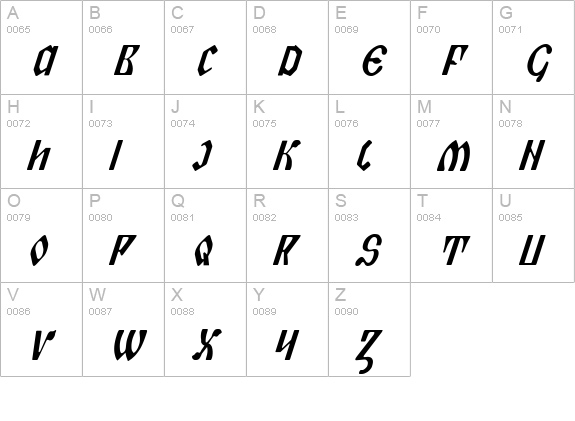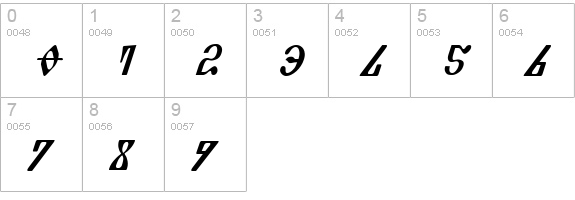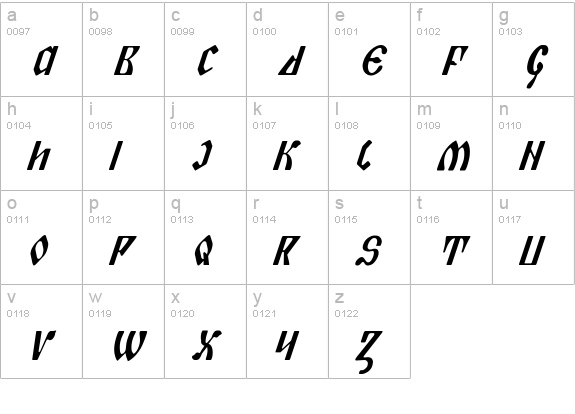
Piper Pie Cond Italic is a distinctive, condensed-width, italic variant in the Piper typeface family \xE2\x80\x94 well suited to design and typography projects.
Piper Pie Cond Italic is a charming and playful typeface that exudes a sense of whimsy and creativity. Its slanted, condensed design adds a touch of elegance and sophistication to any project. The delicate curves and unique letterforms of this font make it perfect for adding a touch of personality to invitations, posters, logos, and more. What makes Piper Pie Cond Italic even more appealing is that it is available for free download at FontsMarket.com. This means that you can easily access and use this font in your designs without any cost. Whether you are a graphic designer, a student, or anyone looking to add a special touch to their projects, Piper Pie Cond Italic is a fantastic choice that won't break the bank. Download it today and let your creativity shine!